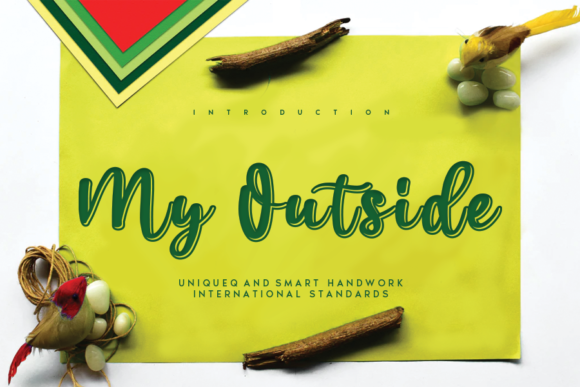
My Outside Font: Elevating Small Business Branding
Using My Outside for Artisan Product Packaging and Labels
When I first started my small batch candle business, I quickly realized that while my scents were unique, my packaging looked generic, so I turned to My Outside, a flowing handwritten font described by an elegant touch, perfect for your favorite projects. As a maker, you know that the unboxing experience is just as important as the product itself, and finding the right typography among thousands of available Fonts can feel overwhelming. I needed something that felt personal yet professional, and this specific Script Handwritten style transformed my simple kraft paper labels into premium brand assets. The distinct curves and timeless aesthetic communicated the care I put into every pour, making my products look like they belonged on a boutique shelf rather than a craft fair table.
Fall in love with its incredibly distinct and timeless style and use it to create spectacular visual identities that resonate with customers who value craftsmanship. When applying this typeface to product labels, readability is paramount, especially on smaller containers like candle jars or skincare bottles. I found that My Outside works best for the product name or a short signature phrase, allowing the intricate details of the letterforms to shine without becoming illegible when scaled down. For the ingredient lists and safety warnings, I paired it with a clean, minimalist sans serif to ensure compliance and clarity while letting the script handle the emotional connection. This balance is crucial for small business owners who need their packaging to be both beautiful and functional.
My Outside for Social Media Graphics and Digital Storytelling
Creating consistent content for Instagram and Pinterest became significantly easier once I integrated My Outside into my digital templates, proving that this flowing handwritten font is not just for print but also for screen-based branding. In the crowded space of social media, stopping the scroll requires visuals that feel authentic and warm, qualities that are naturally embedded in this Script Handwritten design. I began using the font for quote overlays, announcement graphics, and story highlights, which immediately elevated my feed from amateur to curated. Unlike stiff display fonts, the organic movement of the letters adds a human element to digital spaces, helping potential customers feel a connection to the person behind the brand before they even visit the shop.
For entrepreneurs managing their own marketing, versatility in Fonts is essential to maintain a cohesive look across different platforms without spending hours on custom lettering. Fall in love with its incredibly distinct and timeless style and use it to create spectacular social media assets that align perfectly with your physical products. When designing for mobile screens, I recommend using My Outside sparingly as a headline or accent element against a solid background or negative space to maximize contrast. This ensures that the elegant touch remains visible even on smaller devices. By establishing a set template where this script always appears in the same position or color, you build visual recognition that makes your brand instantly identifiable in a follower’s feed.
Designing Wedding Stationery and Event Materials with My Outside
Expanding my business services to include custom stationery required a typeface that could convey romance and sophistication, leading me back to My Outside as the primary choice for wedding invitations and event signage. Clients often seek a "handwritten" look that feels intimate but lacks the messiness of actual handwriting, and this Script Handwritten delivers exactly that polished perfection. Whether used for formal invitation suites, seating charts, or welcome signs, the font provides a luxurious foundation that sets the tone for the entire event. It bridges the gap between traditional calligraphy and modern design, appealing to couples who want their special day to feel both classic and contemporary.
When selecting Fonts for high-stakes projects like weddings, consistency and legibility are non-negotiable, and My Outside excels in creating a unified visual language across various paper goods. Fall in love with its incredibly distinct and timeless style and use it to create spectacular keepsakes that clients will cherish for years. I have found that this typeface pairs beautifully with a refined serif font for body text; the contrast between the flowing script headers and the structured serif details creates a hierarchy that guides the reader’s eye effortlessly. For small business owners in the creative industry, offering this level of typographic refinement can justify higher price points and distinguish your services from competitors using overused free alternatives.
My Outside for Boutique Signage and Retail Visual Merchandising
Transforming a physical retail space or a market stall into an immersive brand experience starts with signage, and My Outside serves as an impactful choice for chalkboards, acrylic signs, and window decals. As a business owner, I discovered that the font’s elegant touch translates surprisingly well to large-format applications, drawing customers in from a distance while maintaining its charm up close. In a café or boutique setting, where atmosphere drives sales, using a cohesive Script Handwritten style on menus and price tags reinforces the artisanal quality of the offerings. It signals to passersby that the business pays attention to detail, creating an expectation of quality before they even step inside.
Navigating the world of commercial Fonts for physical spaces requires considering viewing distance and lighting, yet My Outside retains its character even when enlarged for storefront windows or directional signage. Fall in love with its incredibly distinct and timeless style and use it to create spectacular in-store experiences that encourage photography and social sharing. When using this font for menus or price lists, ensure there is ample breathing room around the letterforms to prevent visual clutter. Pairing it with a bold, modern sans serif for pricing or categories ensures that customers can quickly find the information they need while still enjoying the decorative flair. This practical application of typography turns ordinary business necessities into opportunities for brand reinforcement.